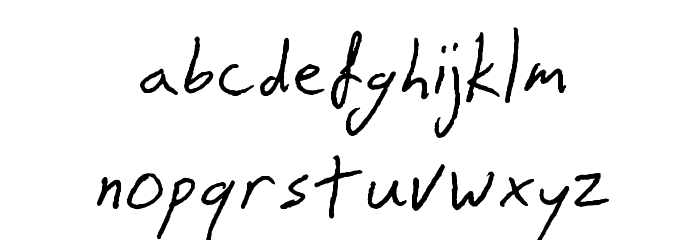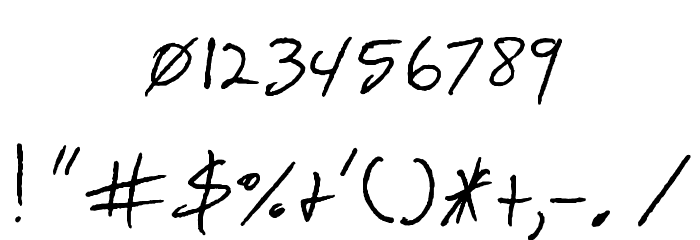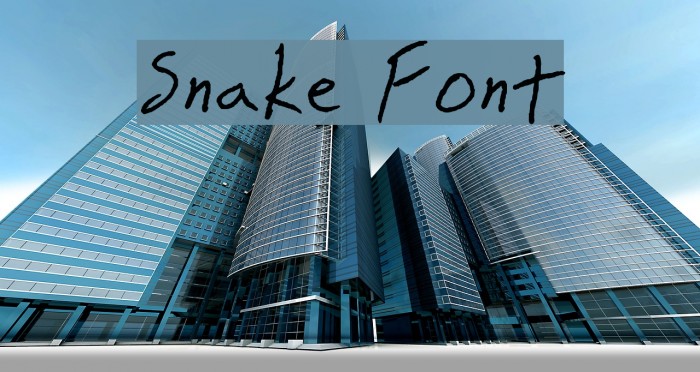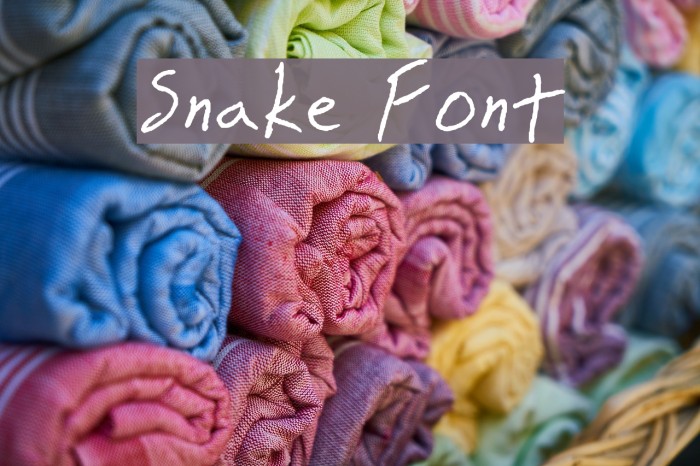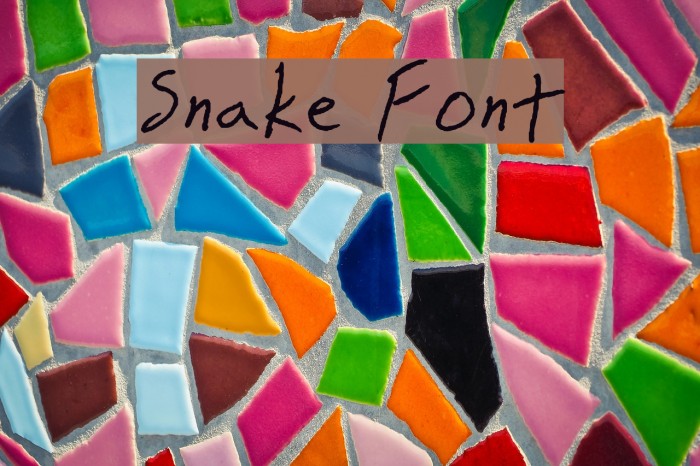
Snake Font
This font features a casual, handwritten style that mimics the natural flow of penmanship. The letters are slightly slanted, with a playful and informal appearance. The strokes are uneven, giving it a personal and authentic feel, as if each character was individually crafted by hand. The uppercase and lowercase letters maintain a consistent style, while the numbers and special characters blend seamlessly with the overall design. This font is ideal for projects that require a personal touch, conveying warmth and approachability.
A casual, handwritten font with a playful and informal style.
- Weight: Medium
- Proposed Projects: Greeting cards, personal letters, informal invitations, and creative projects that require a personal touch.
- Category: Handwritten
- Overall Style: Casual
- Use Case: Logos, Headlines, Informal text